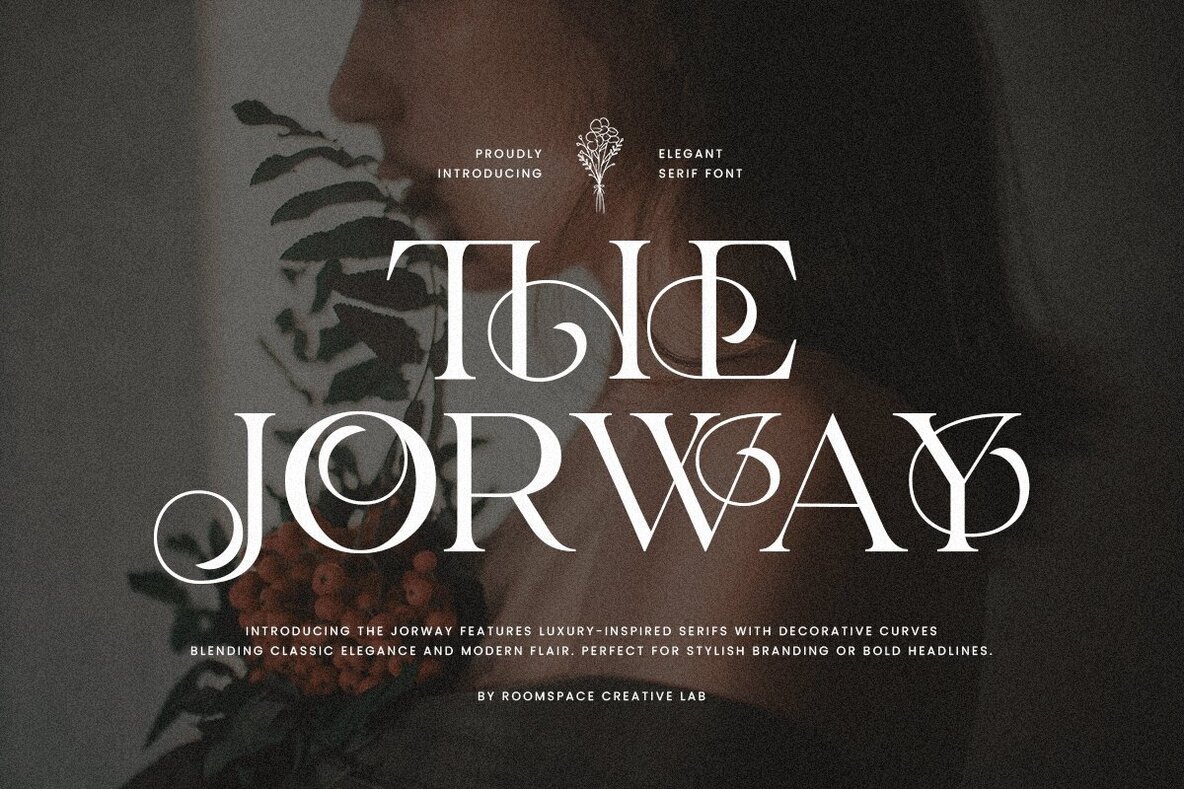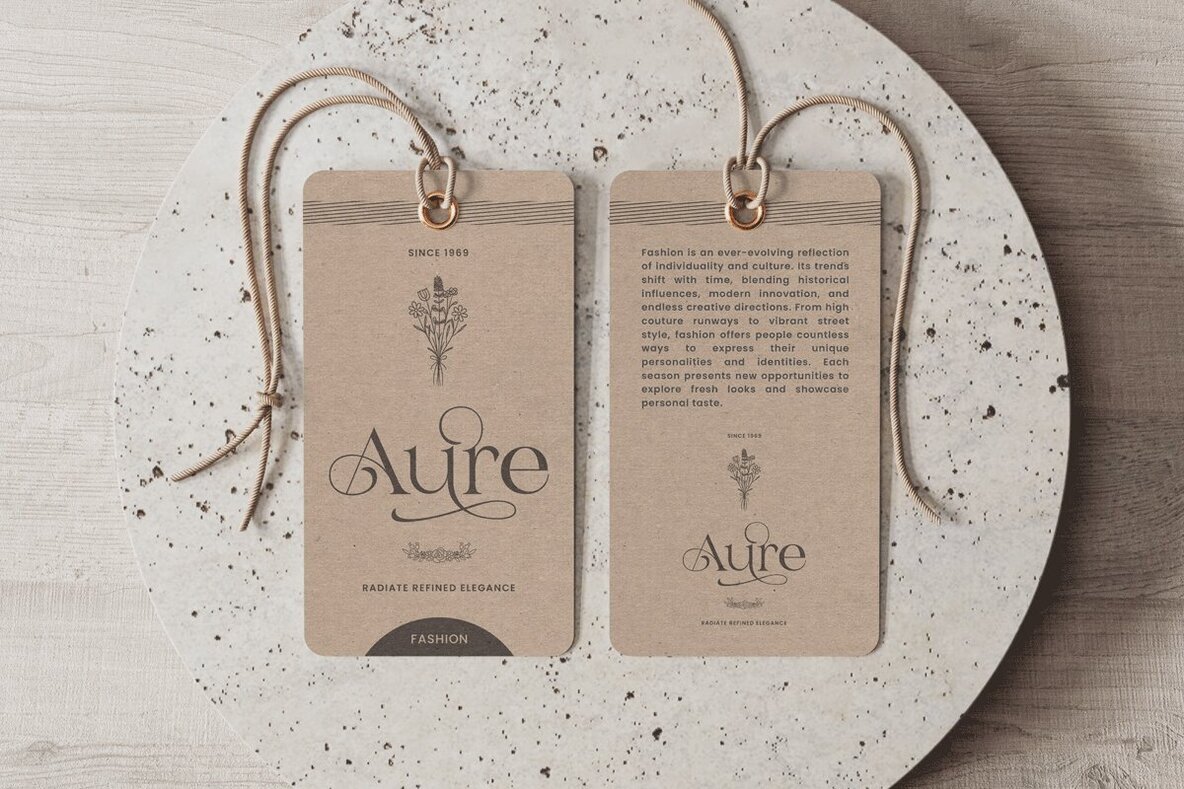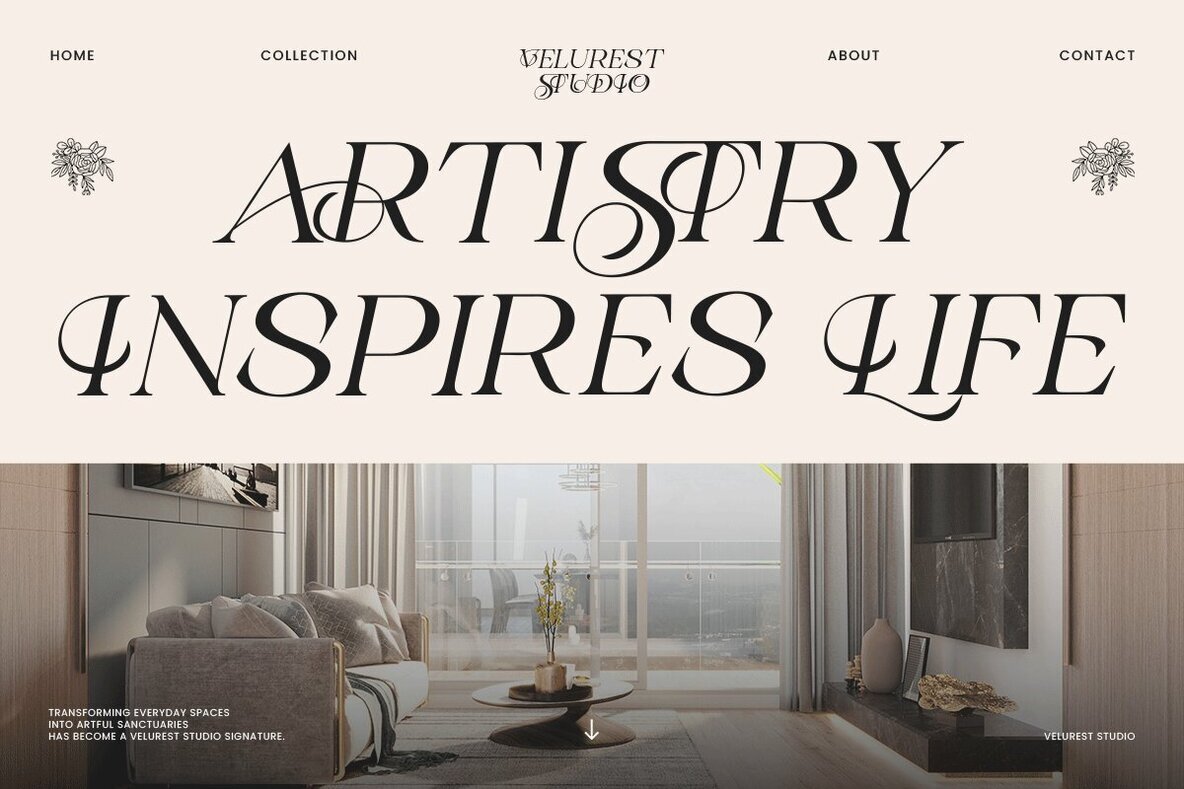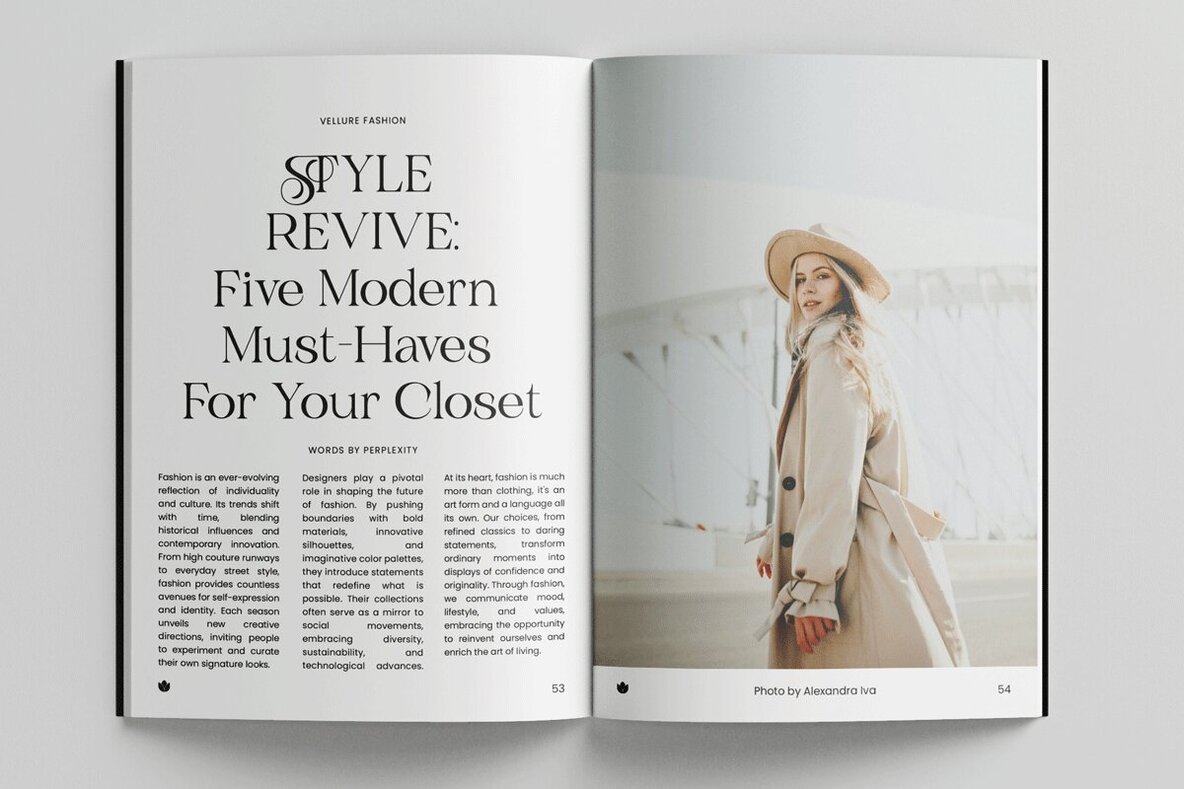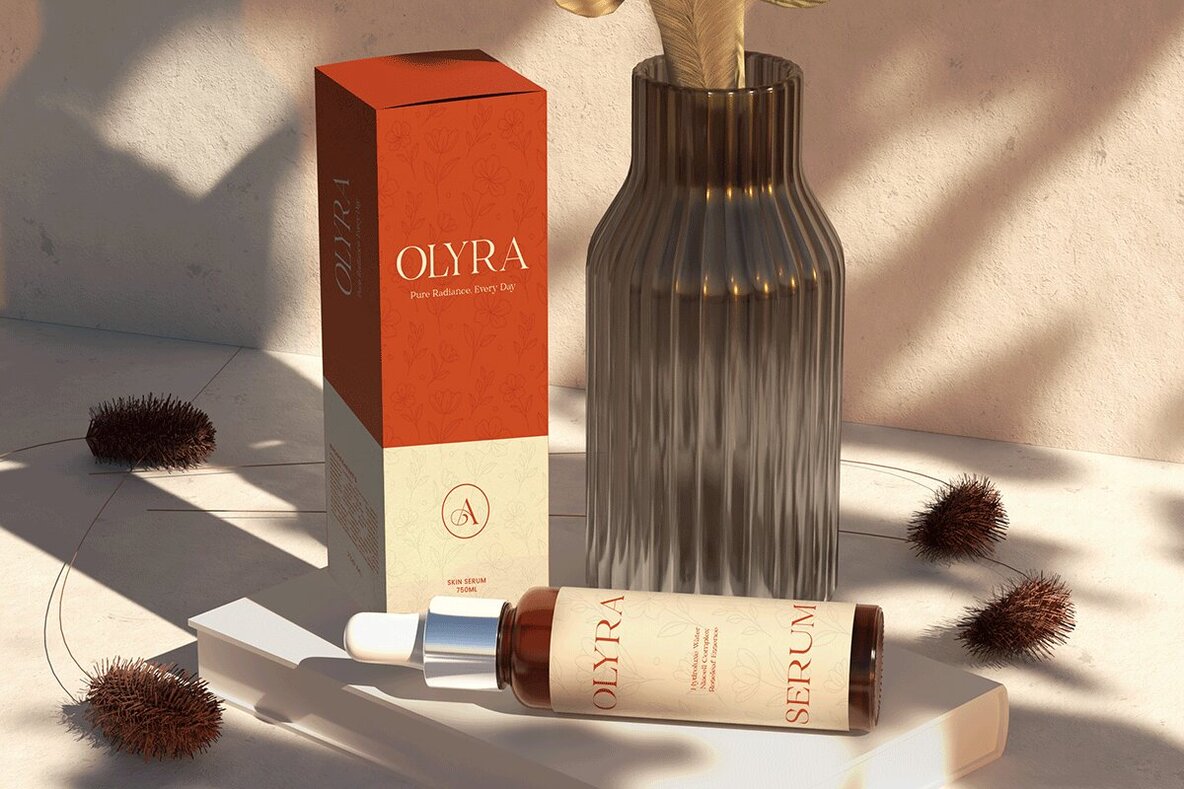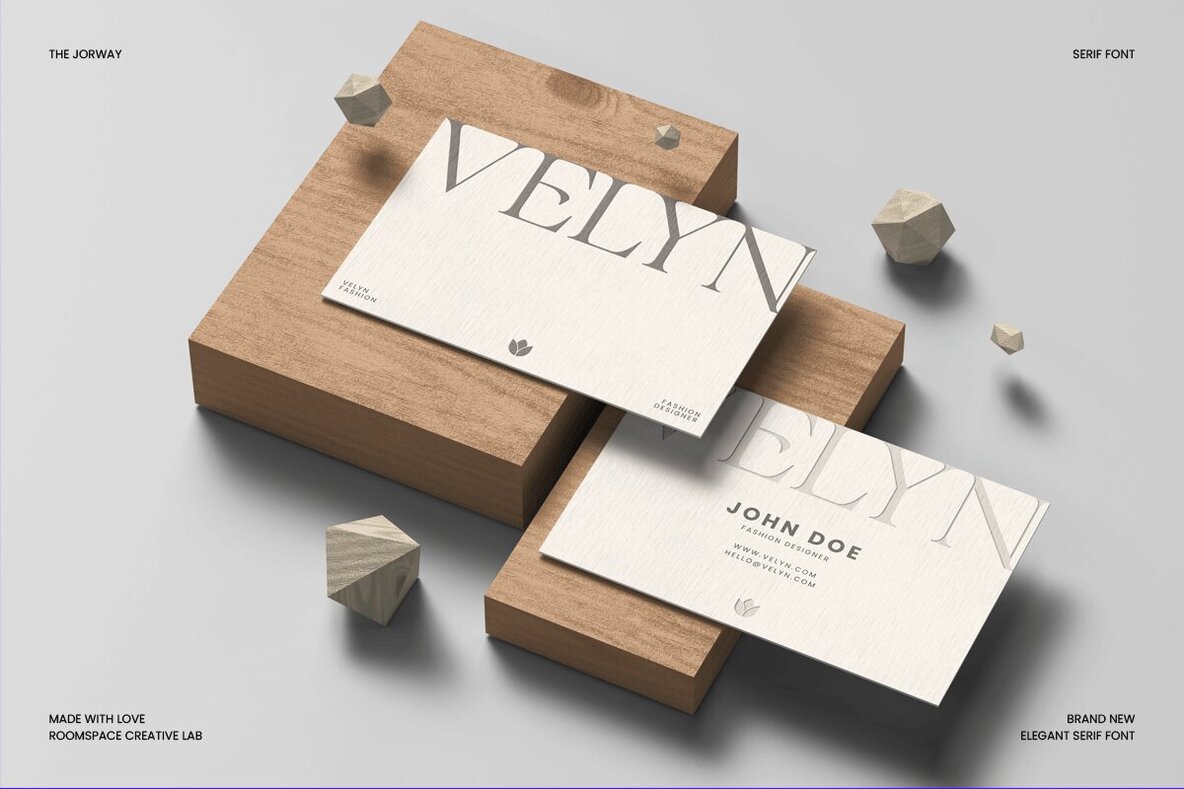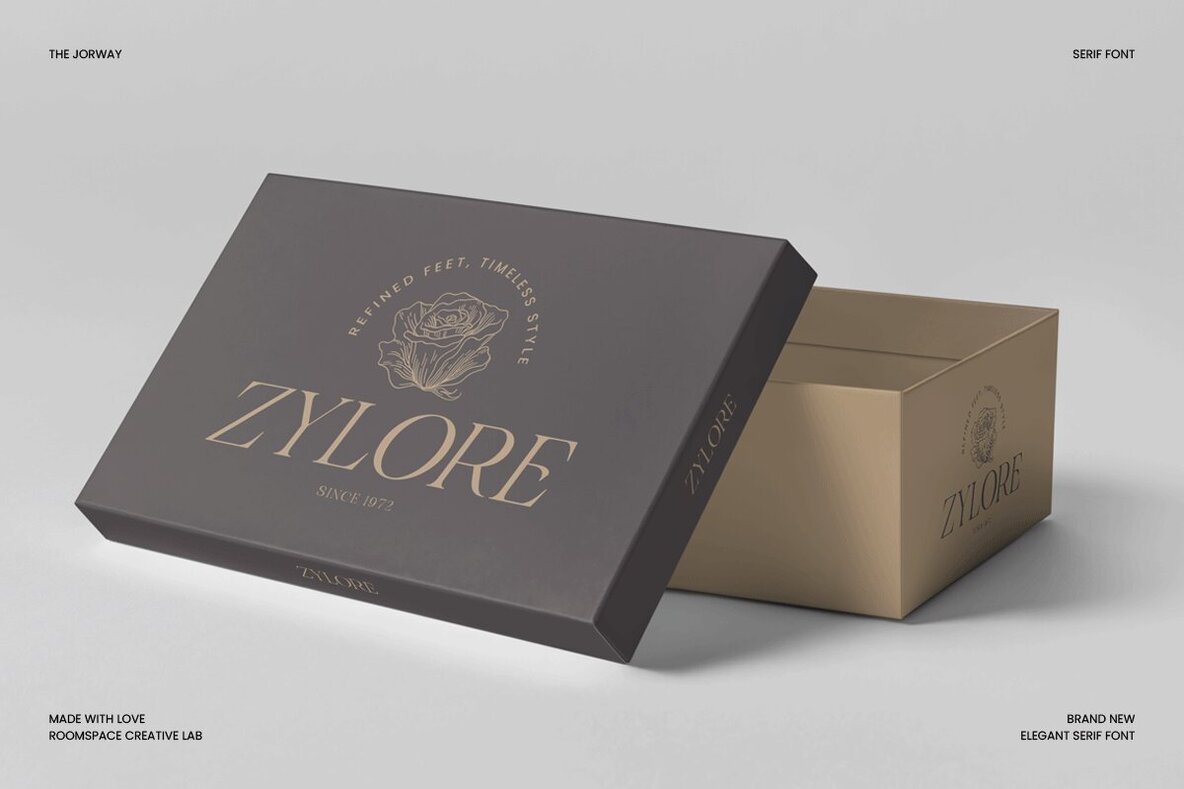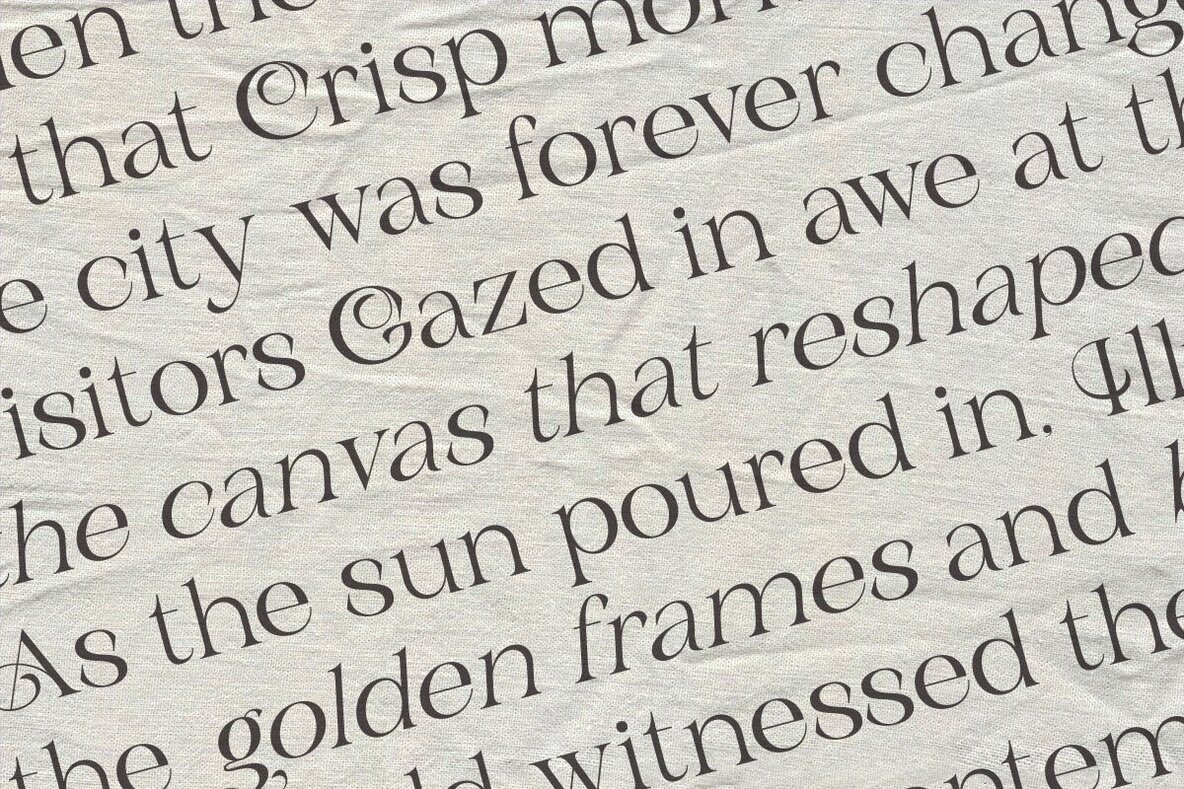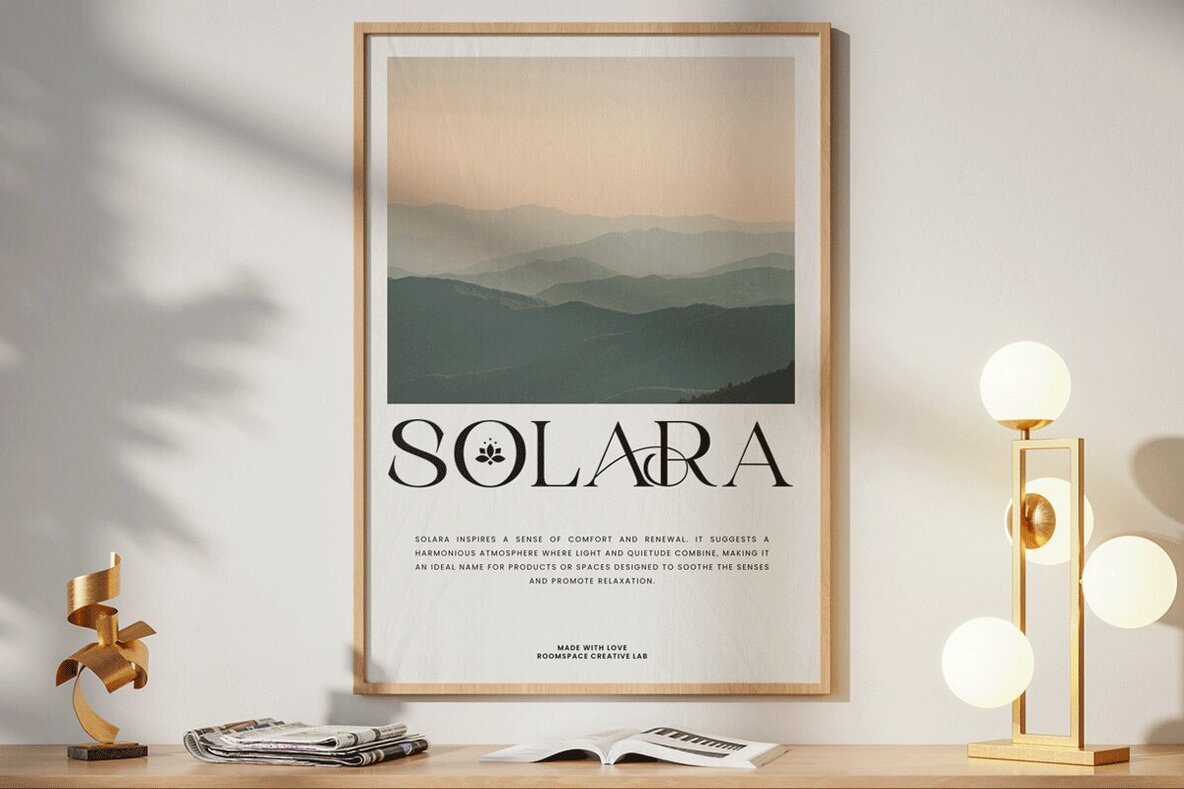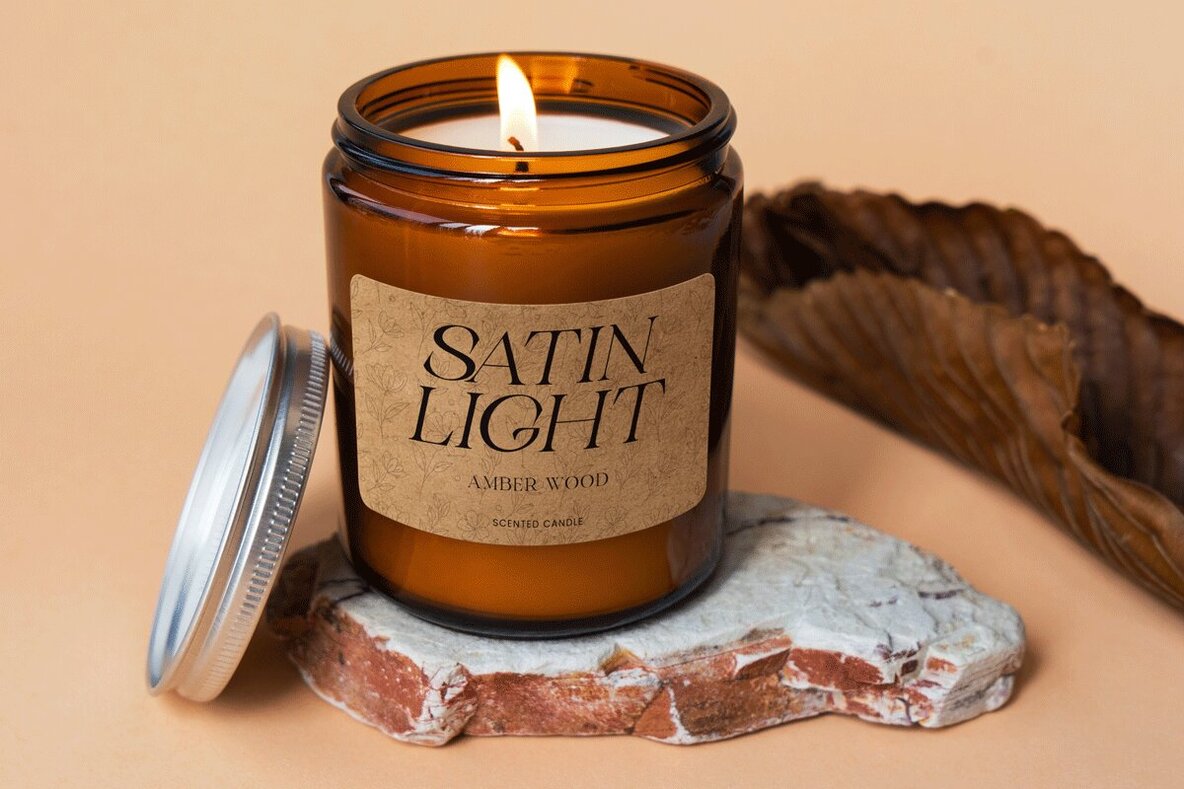
The Jorway Font
The Jorway is a sophisticated serif typeface created to add charm and personality to any project. Its decorative strokes and balanced proportions ensure adaptability across both contemporary and classic design aesthetics. Featuring expressive curves and refined letterforms, The Jorway offers clarity and confidence for headlines and body text alike. Every character is shaped with attention to detail—distinctive curves, smooth contrast, and elegant ligatures enhance the overall visual flow. This typeface supports designers looking for a polished yet creative tone. The Jorway’s readability shines in both bold statements and subtle applications, making it a strong choice for editorial layouts, branding, invitations, or digital interfaces.The Jorway Serif Font